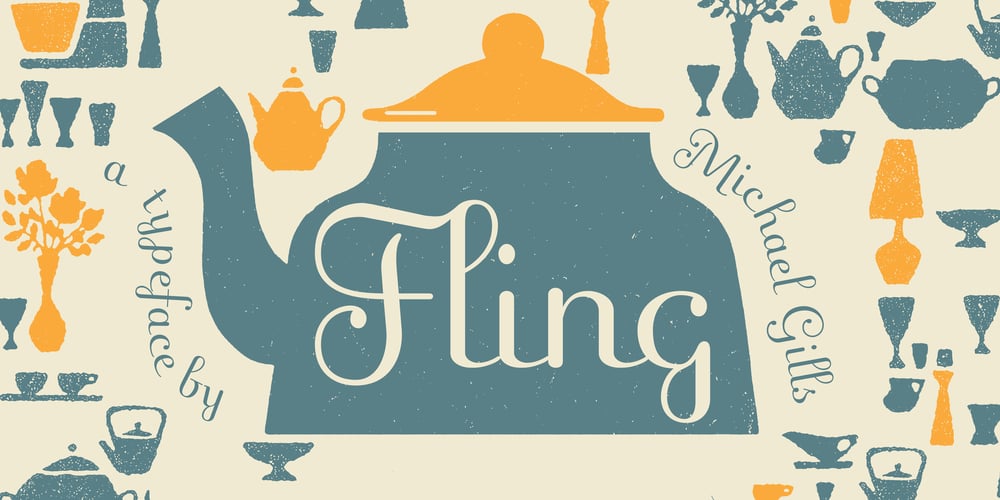
Fling Font Family was designed by Michael Gills and published by ITC. Fling contains 1 styles and family package options. Michael Gills, formerly a resident designer at Letraset, created the Fling typeface in 1995. Fling’s letterforms are based on the Ronde–or round–script style from France. The design includes intricate and generous capital letters, which are contrasted with a more reserved lowercase letters. This allows for a sophisticated and elegant appearance in text.Fling’s letterforms are highly legible for those of a script face, and it is a typeface with many uses. Aside from short amounts of running text, Fling’s capital letters serve well as initials. In the Opentype font are extra ligatures and alternative letterforms thatoffer expanded typesetting possibilities.